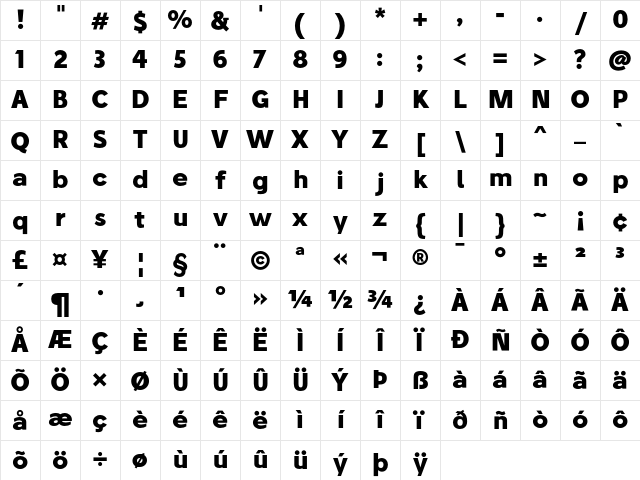
Stilu Bold Free Font
Stilu Bold
Foundry: Genilson Lima Santos
Designer: Genilson Lima Santos
Design Context for Stilu
Stilu is a composed and adaptable typeface that performs quietly and consistently across a wide range of design contexts. Its bold stroke weight gives it real presence on the page.
Who designed the Stilu Bold font?